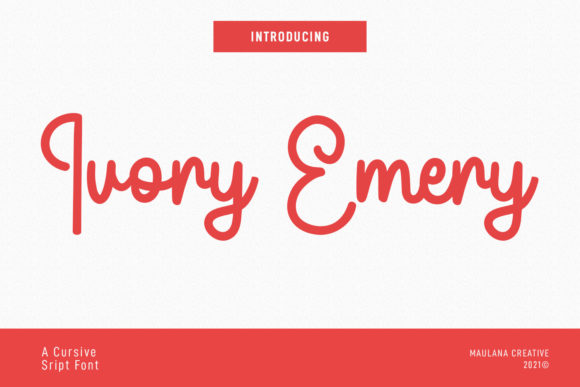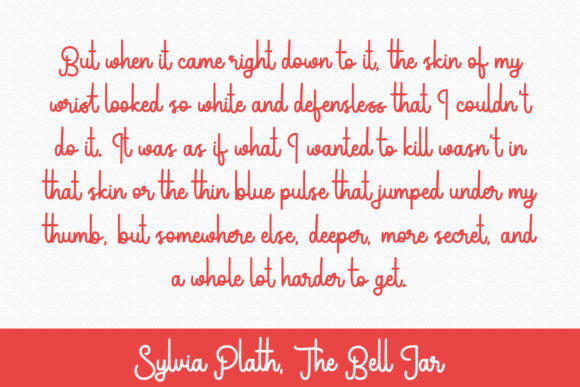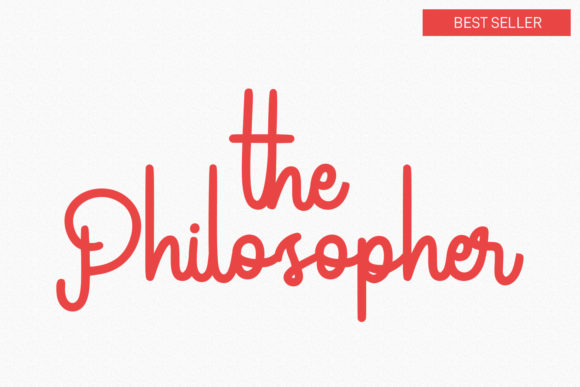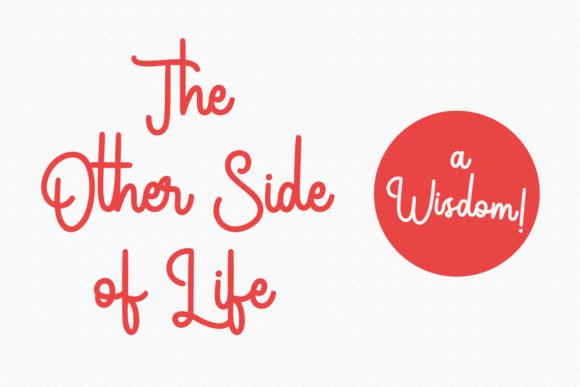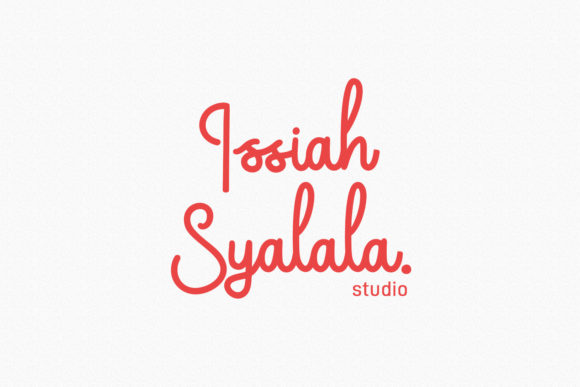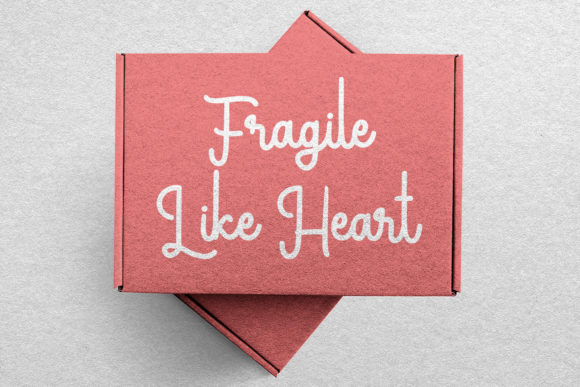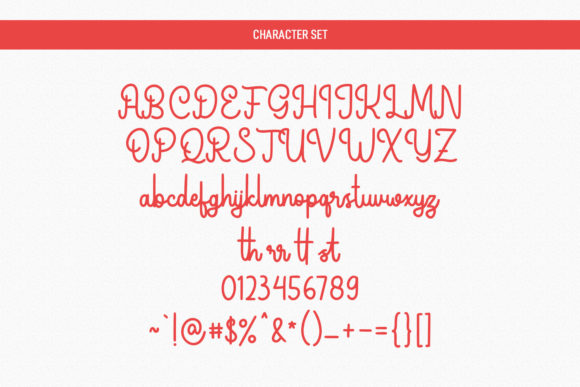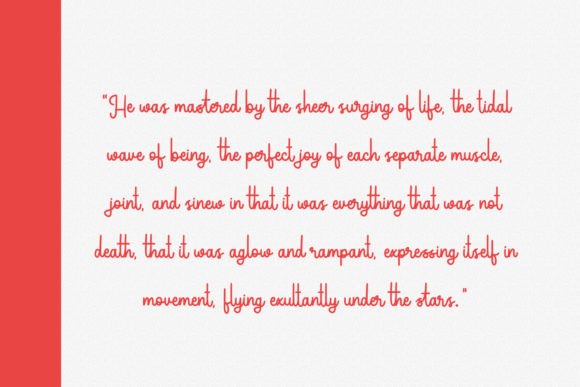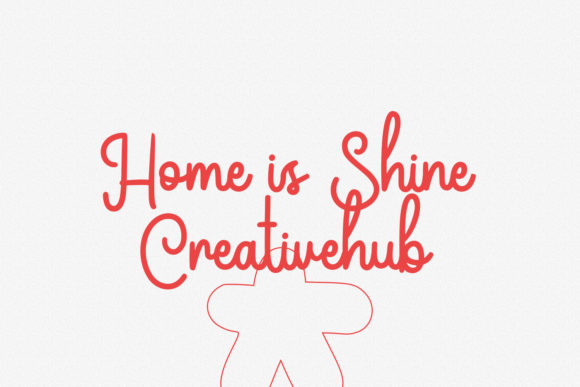
Ivory Emery Script Font
About Ivory Emery Script Font
Ivory Emery is a cursive script font. With a clean mono-line stroke, fun character with a bit of ligature. This font is perfect for logo design, social media, movie titles, and books titles.